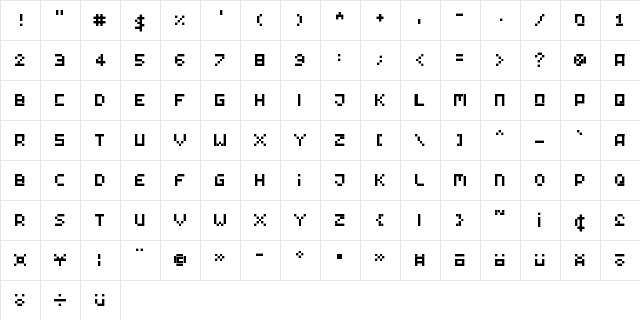
Tiny Pixy Regular
Tiny Pixy takes a measured approach to typography — its balanced proportions and neutral character make it a reliable workhorse for both digital and print work.